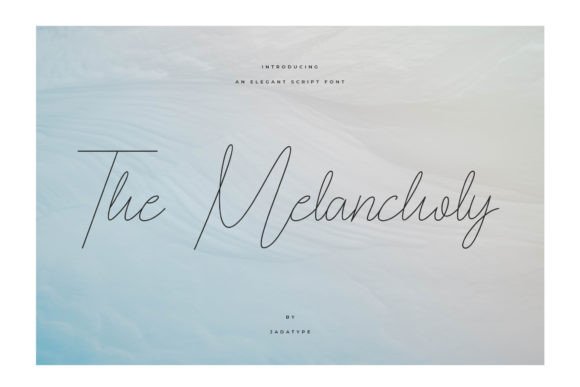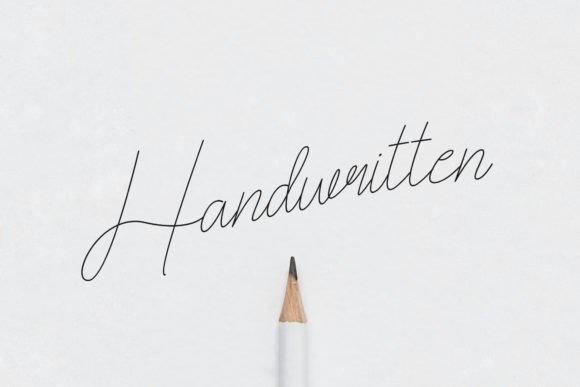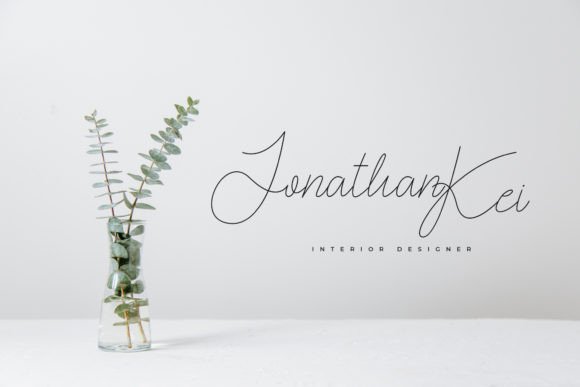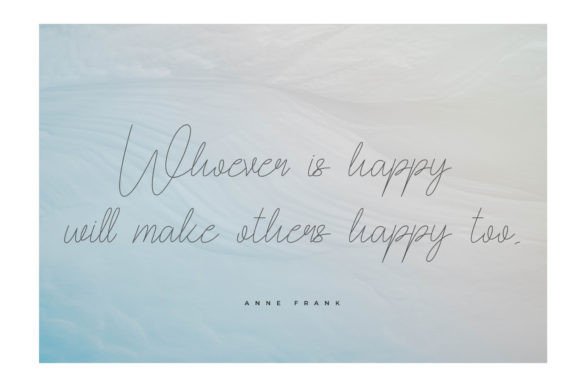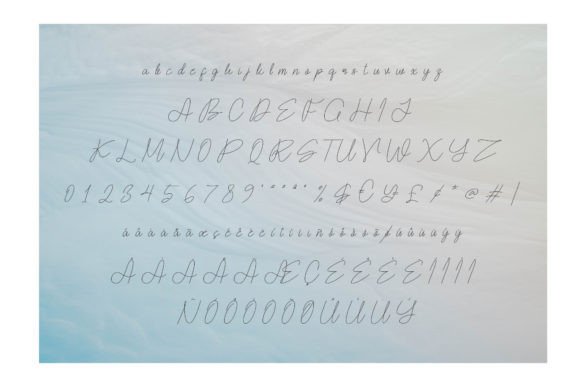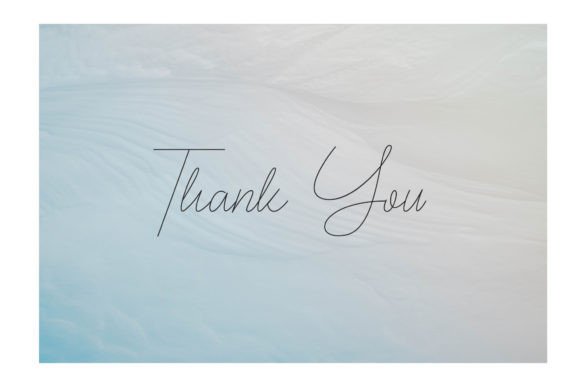
The Melancholy Font
About The Melancholy Font
The Melancholy font is a beautifully crafted script font featuring elegant lines that add sophistication and charm to any design project. Its graceful style makes it an excellent choice for weddings, invitation cards, greeting cards, product design, branding, logotypes, and much more. Whether you’re creating delicate wedding stationery or distinctive branding materials, The Melancholy font brings a refined and polished look to your work.
Elegant Script for Special Occasions
The Melancholyfont’s flowing lines and refined curves make it ideal for special occasions. It is especially popular for wedding invitations and greeting cards where an elegant, personal touch is essential. The font’s graceful strokes help convey warmth, romance, and sophistication.
Versatility in Design Applications
Beyond weddings, The Melancholyfont suits a wide variety of design needs. Use it for product packaging projects, or creation. Its timeless appeal ensures your designs stay stylish and professional across various platforms and purposes.
Add Sophistication to Your Branding
Brands looking for a font that reflects and class will find The Melancholyfont a perfect match. Its smooth script style enhances logos and brand materials, giving them a unique and memorable identity.
Why Choose The Melancholy Font?
The Melancholyfont combines beauty with. It offers designers the ability to create sophisticated, visually appealing projects without sacrificing readability. Whether your design is digital or print, this font adapts.
Create Stunning Designs with The Melancholy Font
Incorporate The Melancholyfont into your design toolkit and watch your projects transform with its elegant and timeless style. This font elevates everything from personal invitations to professional branding, making it a versatile and valuable choice.